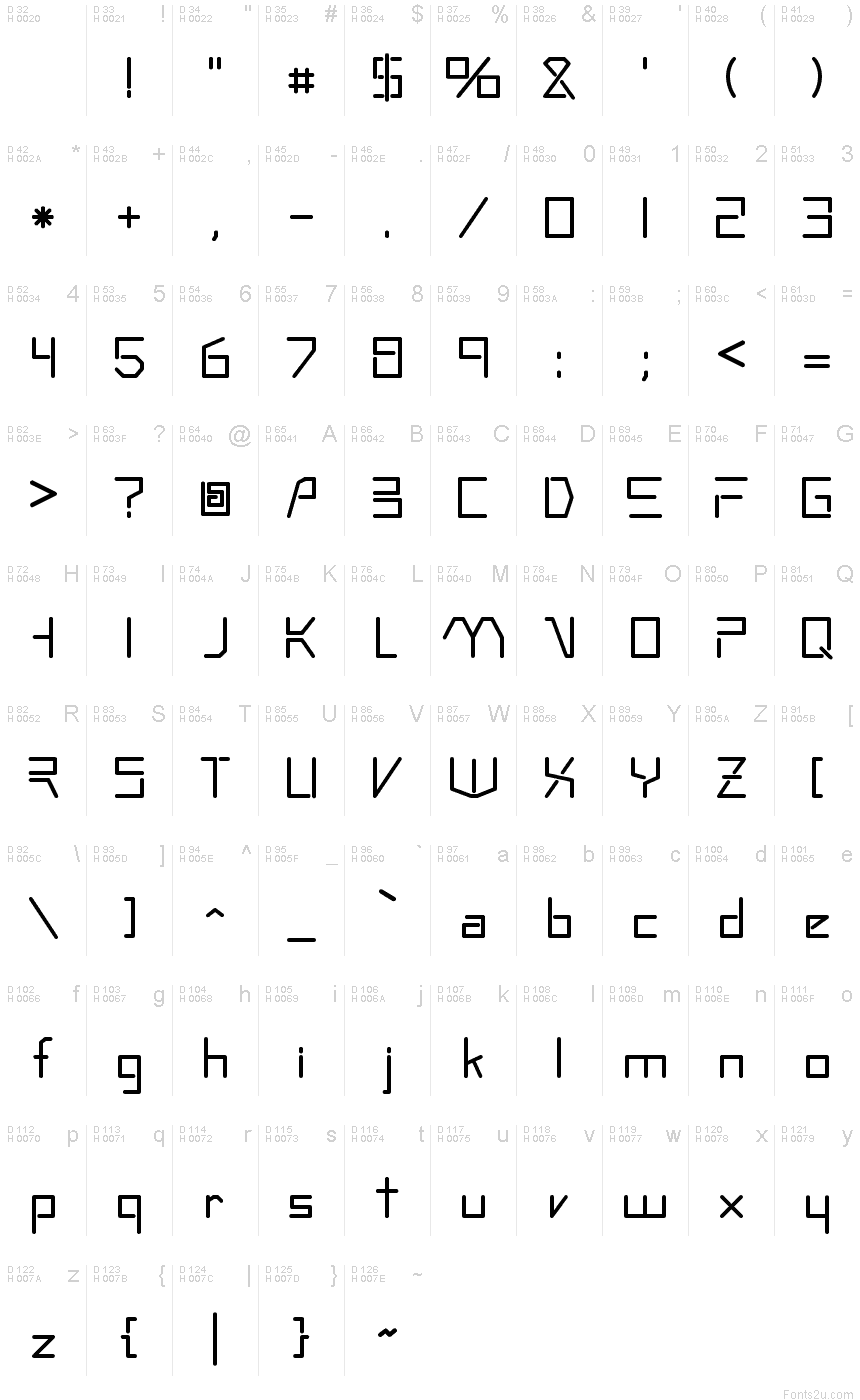
Andros
Andros font by Gerard Bernor is a free techno display typeface with a smooth, tubular rhythm that feels both futuristic and approachable. Its rounded corners, square counters, and continuous stroke weight give letters a sleek circuitry vibe, like clean wiring routed across a dark glass panel. The shapes stay open and airy, so even dense words read clearly while still looking distinctly digital.
Using Andros, you can push sci‑fi posters, gaming logos, app splash screens, tech conference branding, and gadget packaging into a sharper, more unified visual world. This free font shines when set large, where its geometric curves and squared forms can really breathe; pair it with a light, neutral sans for small text to keep the look streamlined and modern.